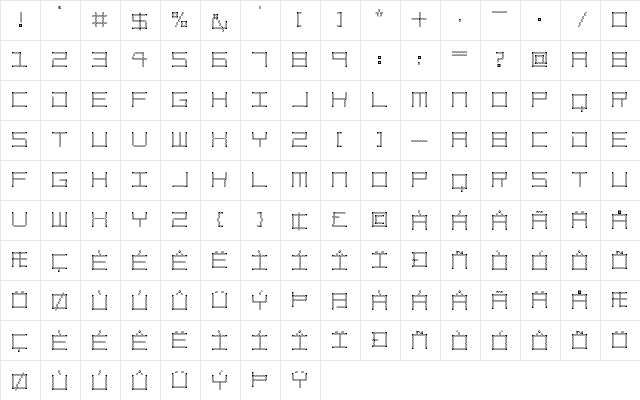
Amaya Technical Etching Regular
| Designer | snapdragongirl |
Design Context for Amaya Technical Etching Typeface
Amaya Technical Etching has a distinctly futuristic character, with geometric precision and clean angles that feel at home in technology, gaming, and sci-fi contexts.